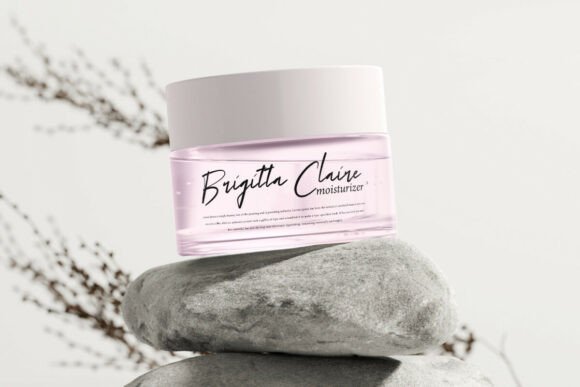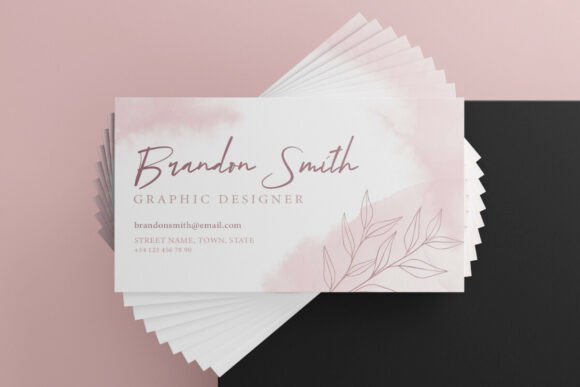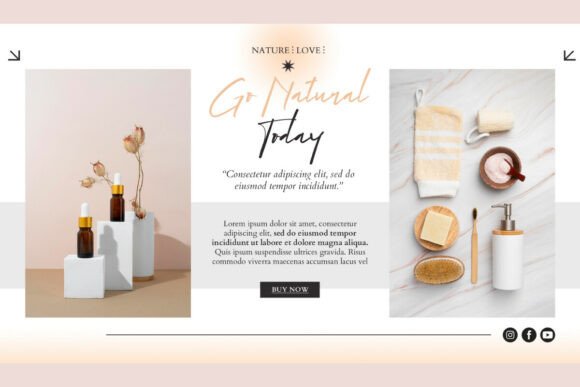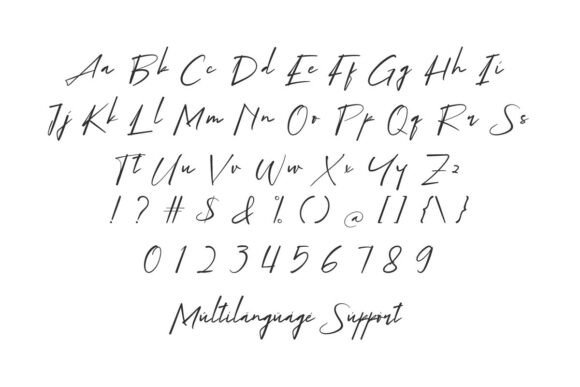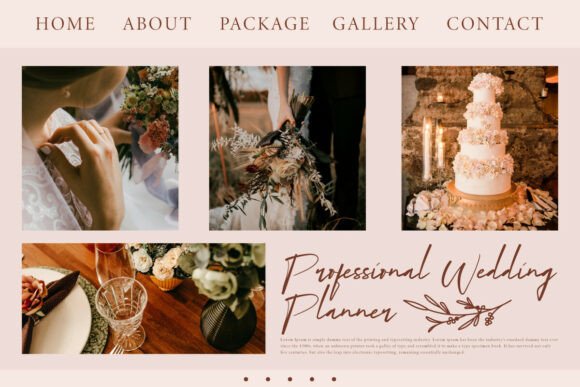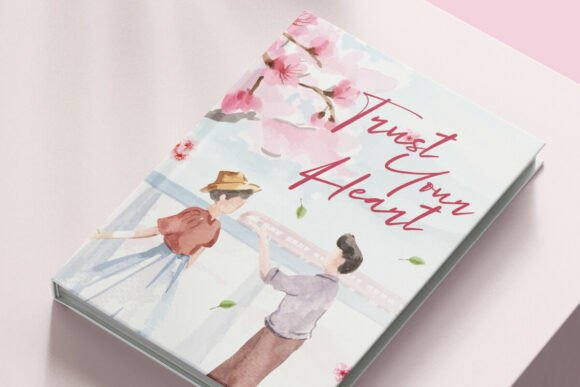
Hanya Dirimu Font: Elevate Your Designs with Timeless Elegance
In the world of typography, a charming handwritten font can make all the difference in creating a lasting impression. Introducing Hanya Dirimu Font, a beautiful and feminine script that is sure to capture the hearts of designers and crafters alike. With its smooth edges and stunning curves, this font is perfect for adding a touch of elegance and individuality to any creative design.
What Makes Hanya Dirimu Font Special?
Hanya Dirimu Font is a unique and captivating script that boasts a range of characteristics that set it apart from other fonts. Here are some of its key features:
- Feminine charm: Hanya Dirimu Font exudes a sense of femininity and delicacy, making it perfect for designs that require a touch of elegance and sophistication.
- Smooth edges: The font’s smooth edges ensure that it remains easy to read, even at smaller sizes.
- Beautiful curves: The curves of Hanya Dirimu Font are stunning and add a touch of whimsy to any design.
- Timeless elegance: This font has a timeless quality that ensures it will remain relevant for years to come.
Perfect for a Range of Design Applications
Hanya Dirimu Font is incredibly versatile and can be used in a wide range of design applications. Here are some ideas to get you started:
- Blogs: Add a touch of elegance to your blog with Hanya Dirimu Font, perfect for headings, titles, and more.
- Brand logo: Create a lasting impression with a custom logo designed using Hanya Dirimu Font.
- Business card: Stand out from the crowd with a beautifully designed business card featuring Hanya Dirimu Font.
- Card design: Create stunning greeting cards, invitations, and more with this charming font.
- Cover design: Add a touch of sophistication to your book or magazine cover with Hanya Dirimu Font.
- Headers: Use Hanya Dirimu Font to create eye-catching headers for your website or blog.
- Label tag: Create custom labels and tags for your products or packages with this beautiful font.
- Printing: Use Hanya Dirimu Font for a range of printing applications, from brochures to flyers.
- Product packaging: Add a touch of elegance to your product packaging with Hanya Dirimu Font.
- Quotes: Create stunning quote graphics with this beautiful font.
- Sticker design: Design custom stickers with Hanya Dirimu Font for a range of applications.
- Template design: Create custom templates for your designs using Hanya Dirimu Font.
- Title design: Use Hanya Dirimu Font to create stunning title graphics for your website or blog.
- Website design: Add a touch of elegance to your website with Hanya Dirimu Font, perfect for headings, titles, and more.
Ideal for Various Industries
Hanya Dirimu Font is perfect for a range of industries that require a touch of elegance and sophistication. Here are some examples:
- Advertising: Use Hanya Dirimu Font to create stunning ad graphics that capture attention.
- Beauty clinic: Add a touch of elegance to your beauty clinic’s branding with Hanya Dirimu Font.
- Boutique: Create a lasting impression with a custom logo and branding designed using Hanya Dirimu Font.
- Event organizer: Use Hanya Dirimu Font to create stunning event graphics, from invitations to signage.
- Fashion: Add a touch of sophistication to your fashion brand with Hanya Dirimu Font, perfect for logos, labels, and more.
- Graphic design: Use Hanya Dirimu Font to create stunning graphic designs for a range of applications.
- Skincare: Create a lasting impression with a custom logo and branding designed using Hanya Dirimu Font.
- Wedding: Use Hanya Dirimu Font to create stunning wedding graphics, from invitations to signage.
- Writer: Add a touch of elegance to your writing with Hanya Dirimu Font, perfect for quotes, titles, and more.
In conclusion, Hanya Dirimu Font is a charming handwritten font that is perfect for designers and crafters looking to add a touch of elegance and sophistication to their designs. With its smooth edges, beautiful curves, and timeless elegance, this font is sure to capture the hearts of audiences everywhere. Whether you’re designing for a range of applications or industries, Hanya Dirimu Font is the perfect choice.